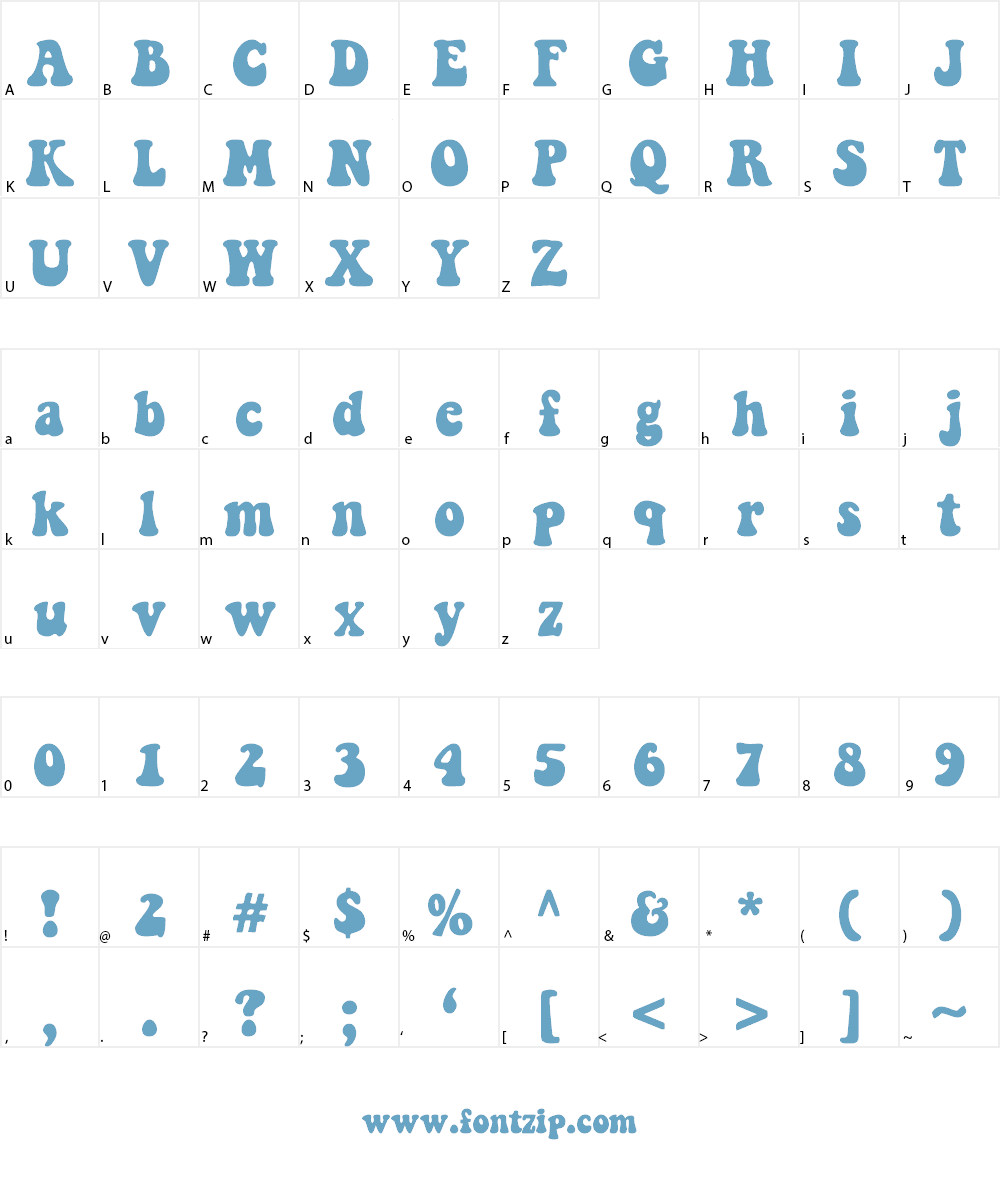
Keep on Truckin' FW ©2013 Brain Eaters Font Co./Brad O. Nelson
Just like the man says! For the Love of typefaces comes a happy, fun new fella. Crazy man, have fun with this little yellow submarine of a font. AKA Jesus Freak